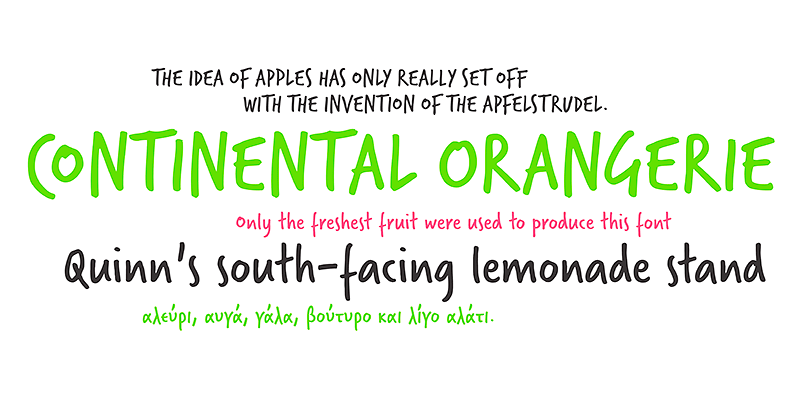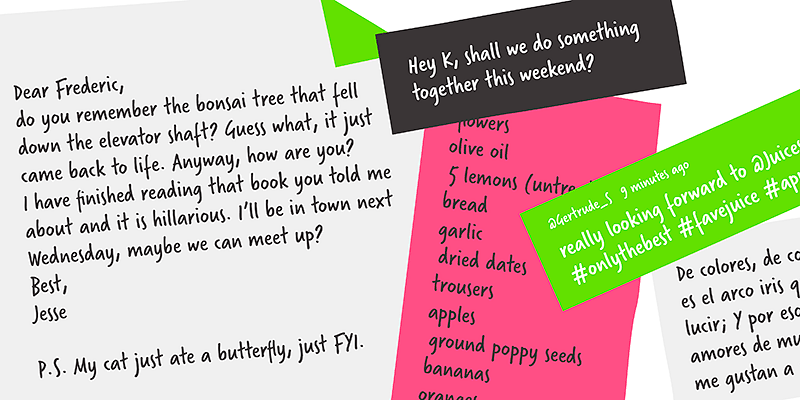
Verveine is delightfully brisk with a familiar energy but, despite this vitality, the design is carefully and rigorously considered. It is most effective when used for just a few words or a tagline.